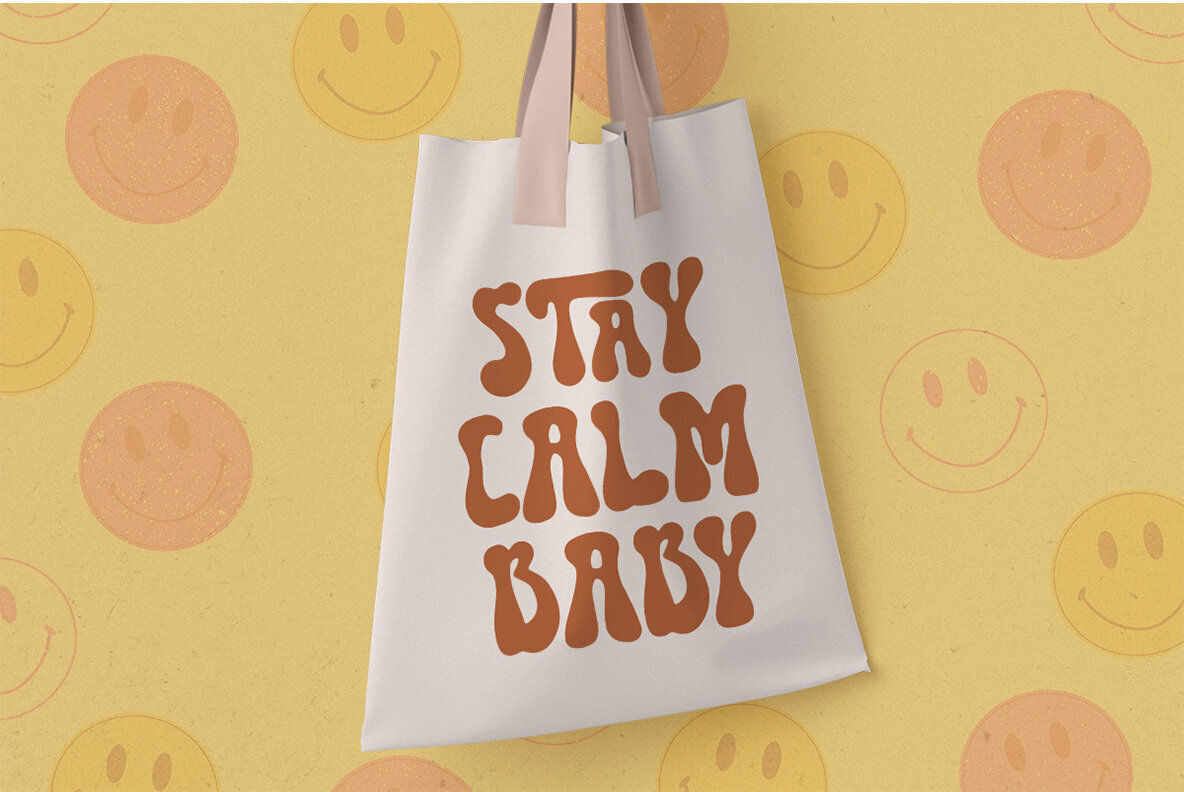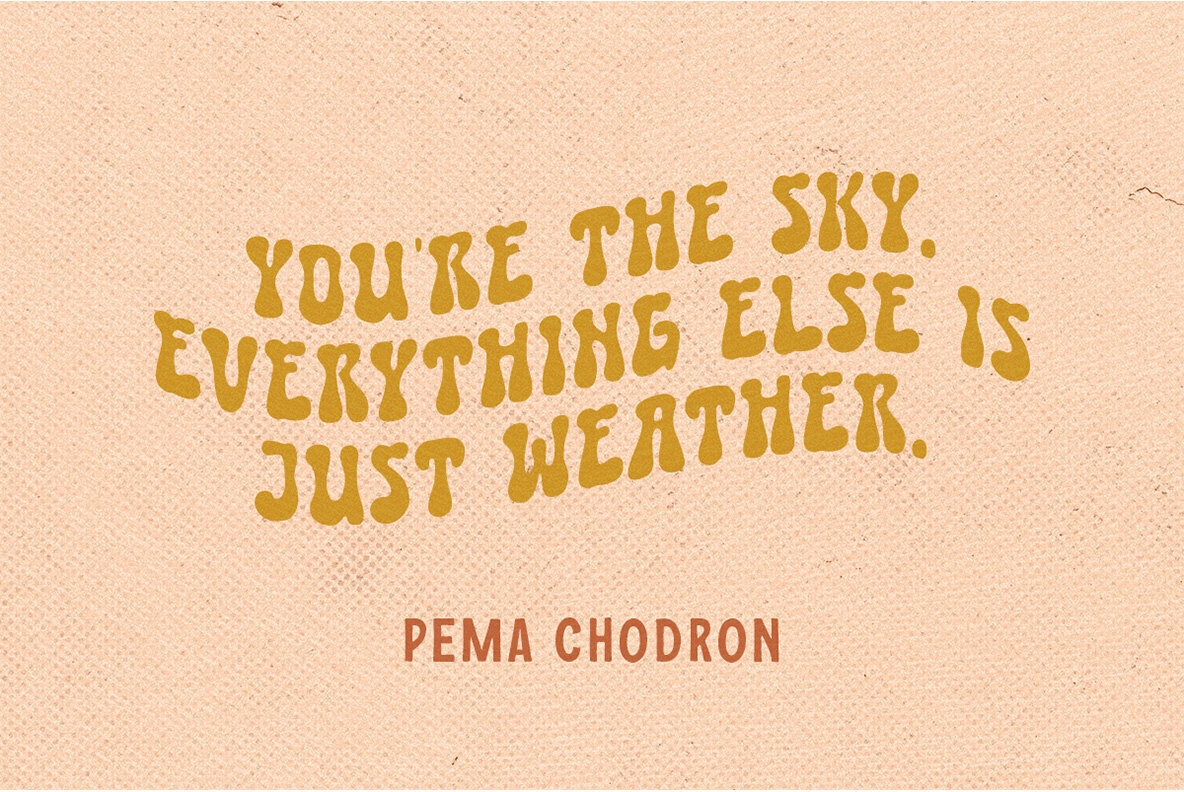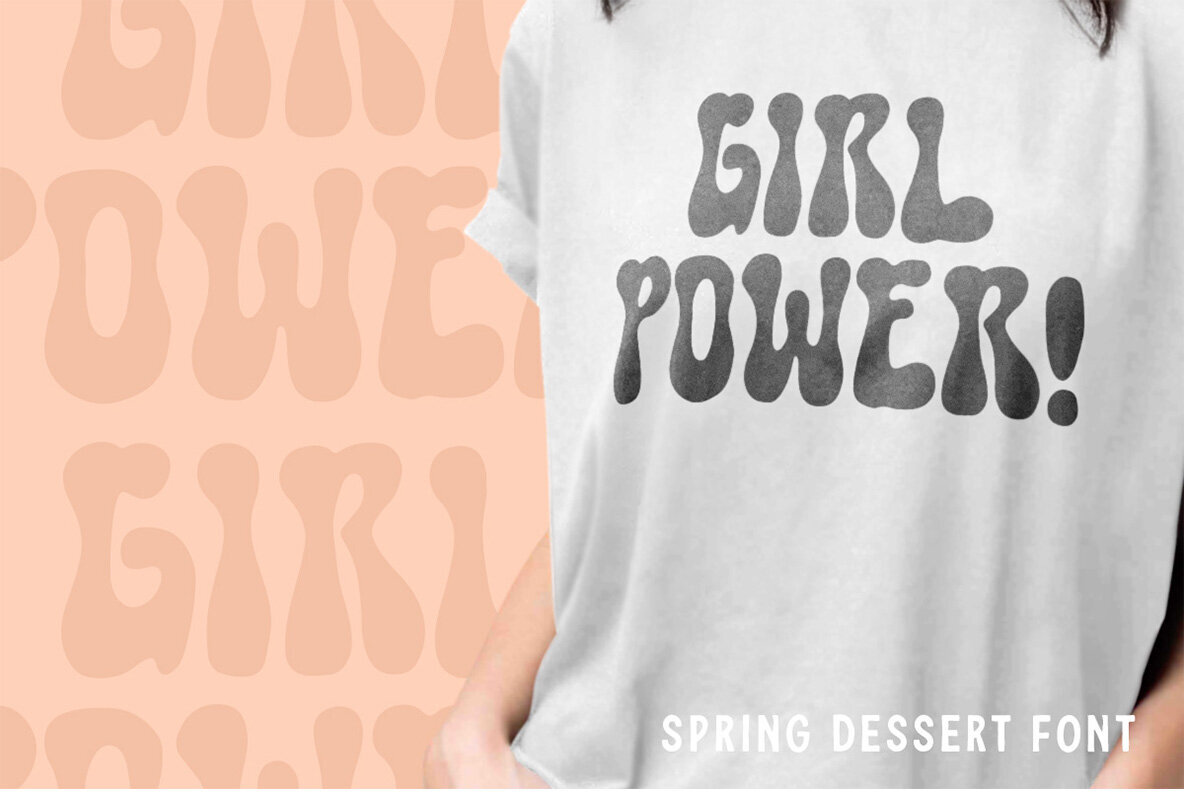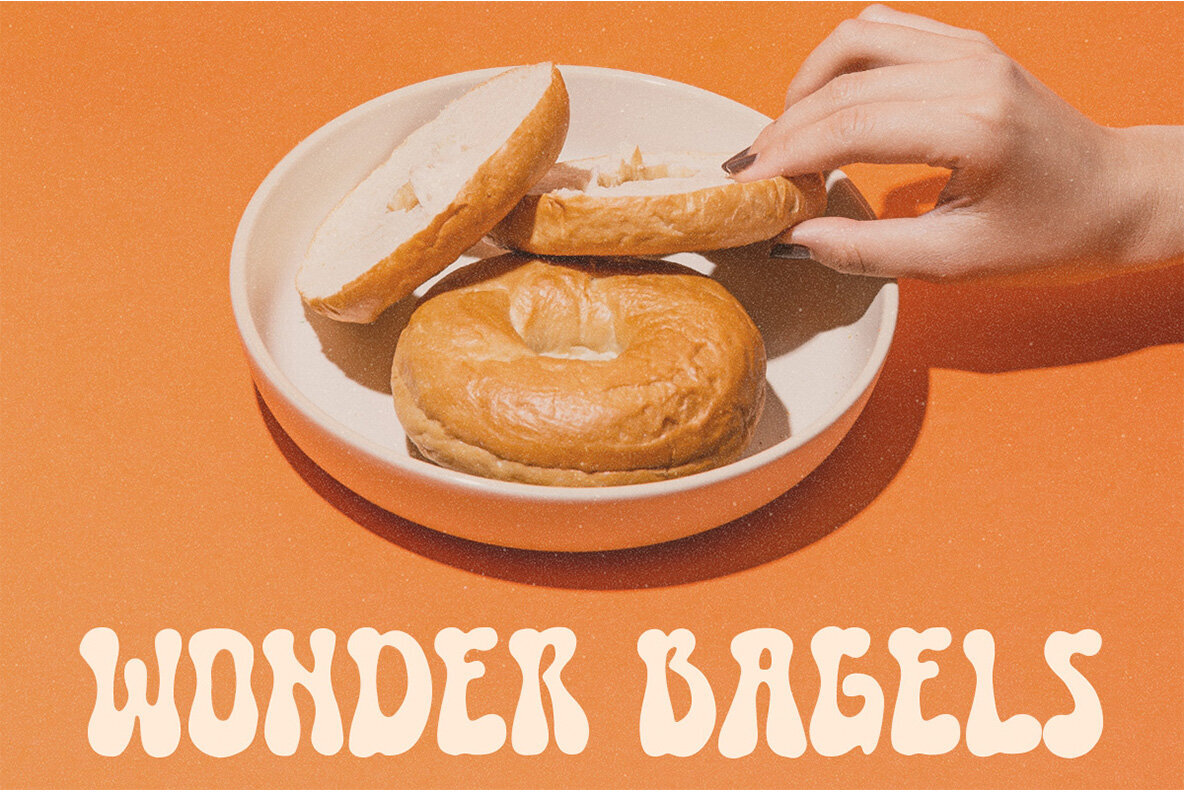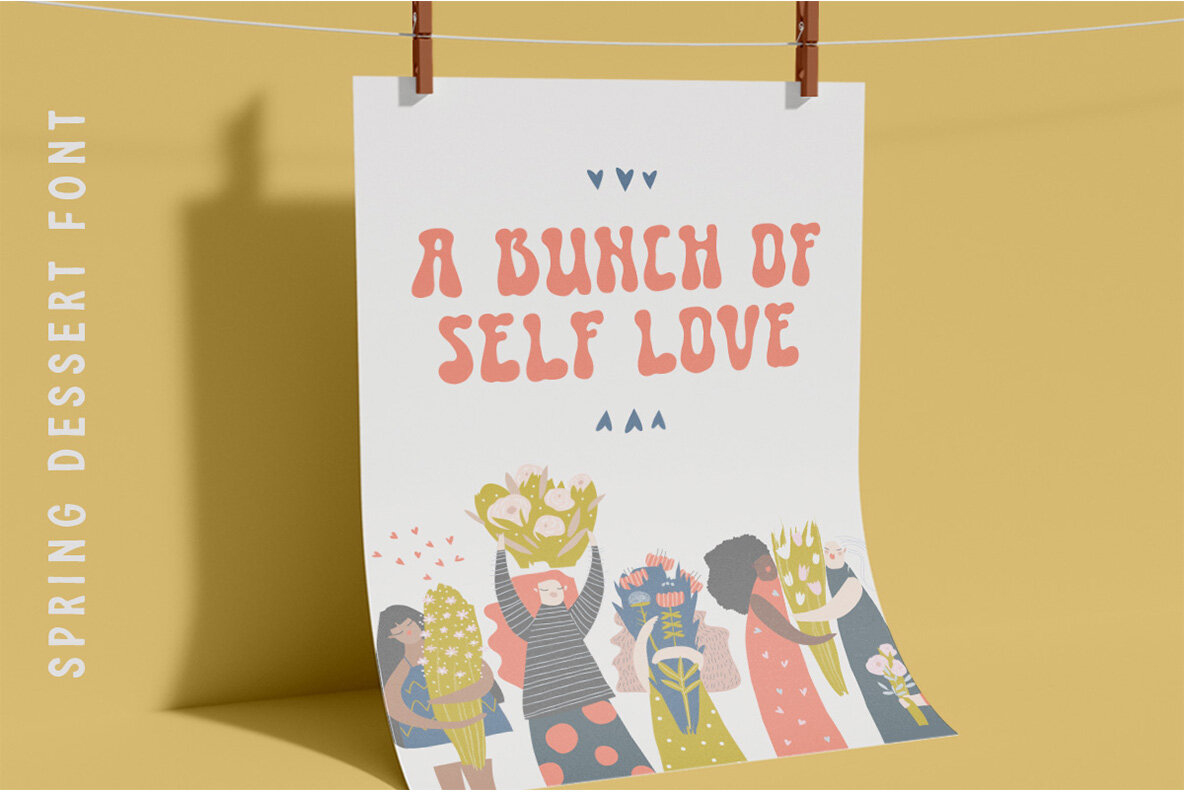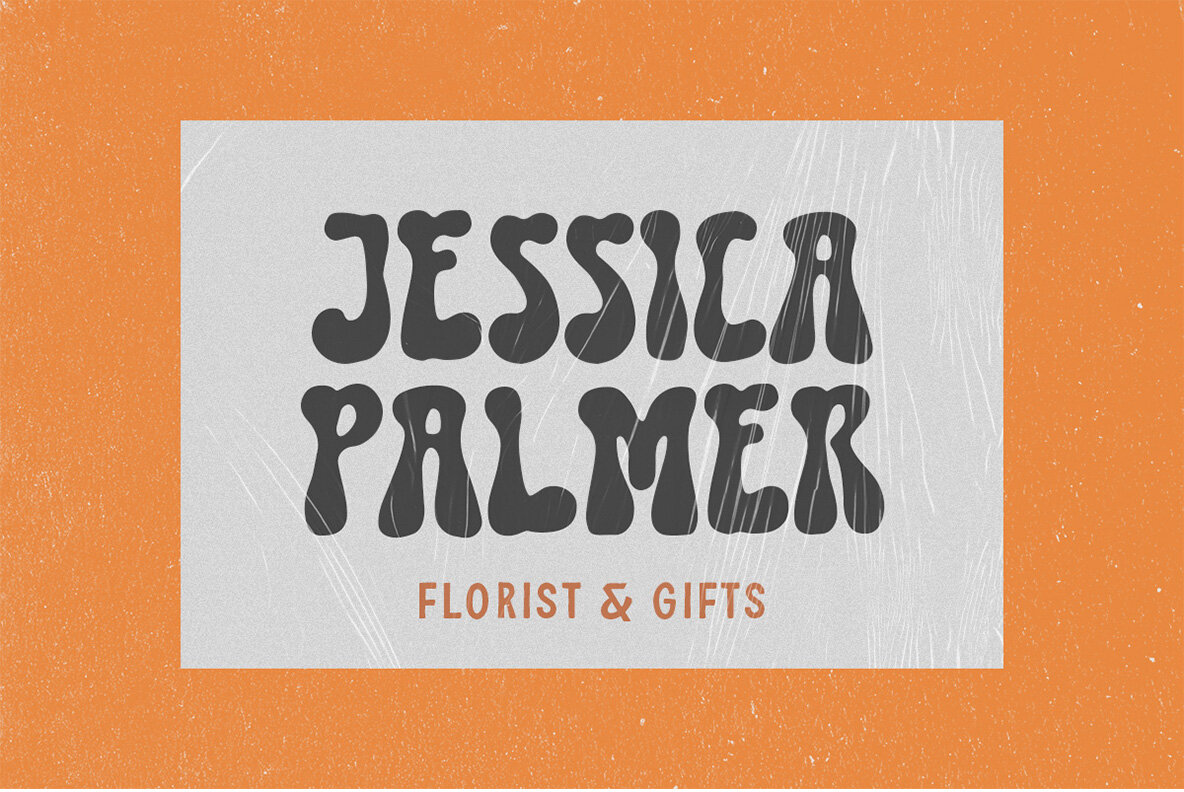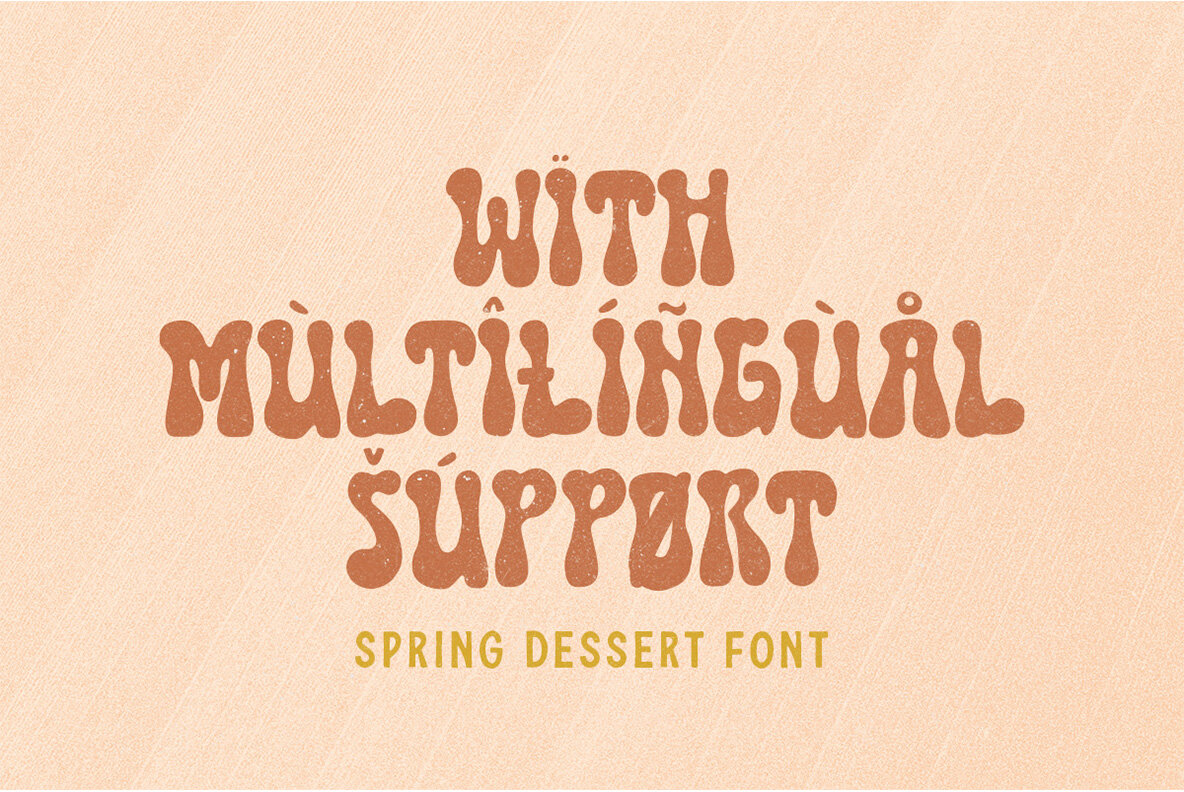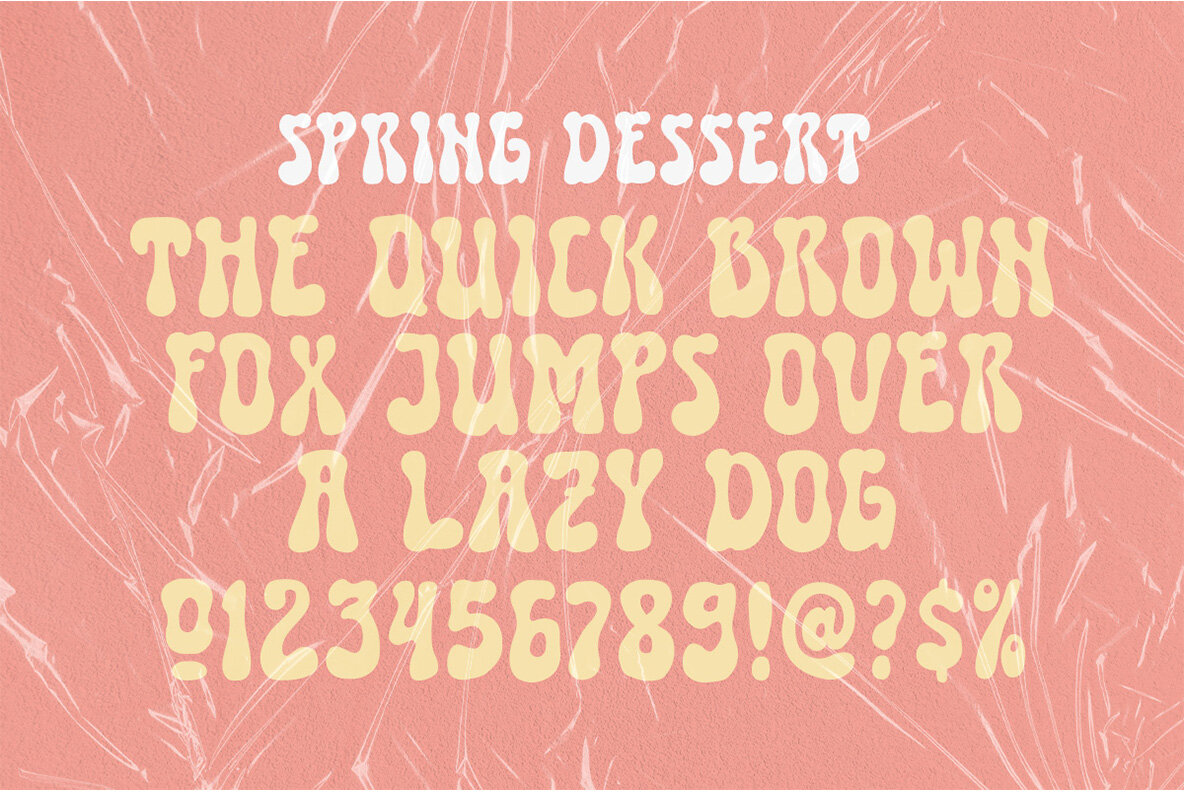
Spring Dessert Font
Spring Dessert captures the playful spirit of retro design with a charming, bubbly aesthetic. This font excels in its versatility, seamlessly enhancing both formal and creative projects. Whether you're crafting a memorable logo or designing elegant invitations, Spring Dessert adapts beautifully to your needs. Its unique touch makes it a perfect choice for magazines, greeting cards, book covers, and any advertising purpose where distinctive typography is key.Spring Dessert: A Stylish Retro Typeface